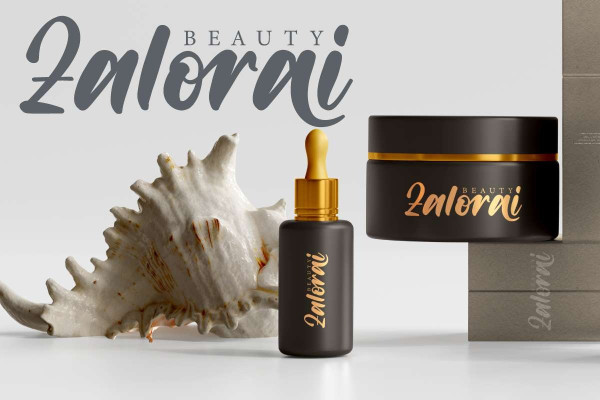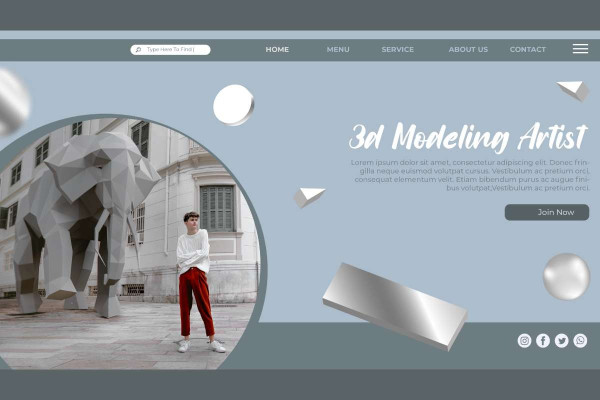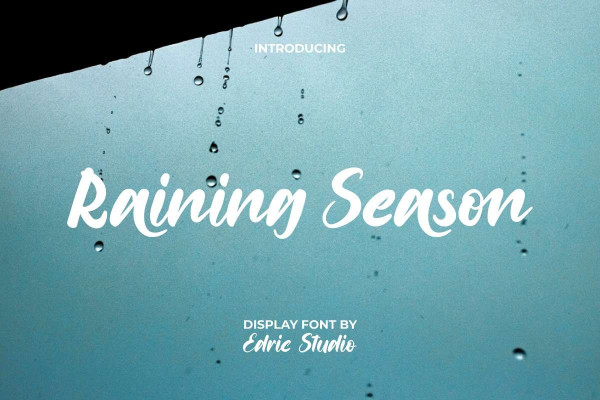
Raining Season Font
Raining Season Font is a modern calligraphic script display font with an artistic touch designed by EdricStudio. This typography has a thick brush shape and similar to cursive letters because it’s basically inspired by calligraphy which will be suitable for any industry, such as, artist, fashion, furniture, restaurant, handicraft, printing, publishing, shoe brand, skincare, wedding, writer, and many more.
Raining Season Font comes with a full set of Uppercase and Lowercase Basic Characters, Number, a large range of Punctuation and Symbol. It has a stunning characters set, perfectly managed with well spaced and kerning. Raining Season Font also comes with additional ligature characters, will be able to complement for any project (with extended license) including: brand logo, brochure, header, invitation, product packaging, quote, screen print, sticker, website, etc.